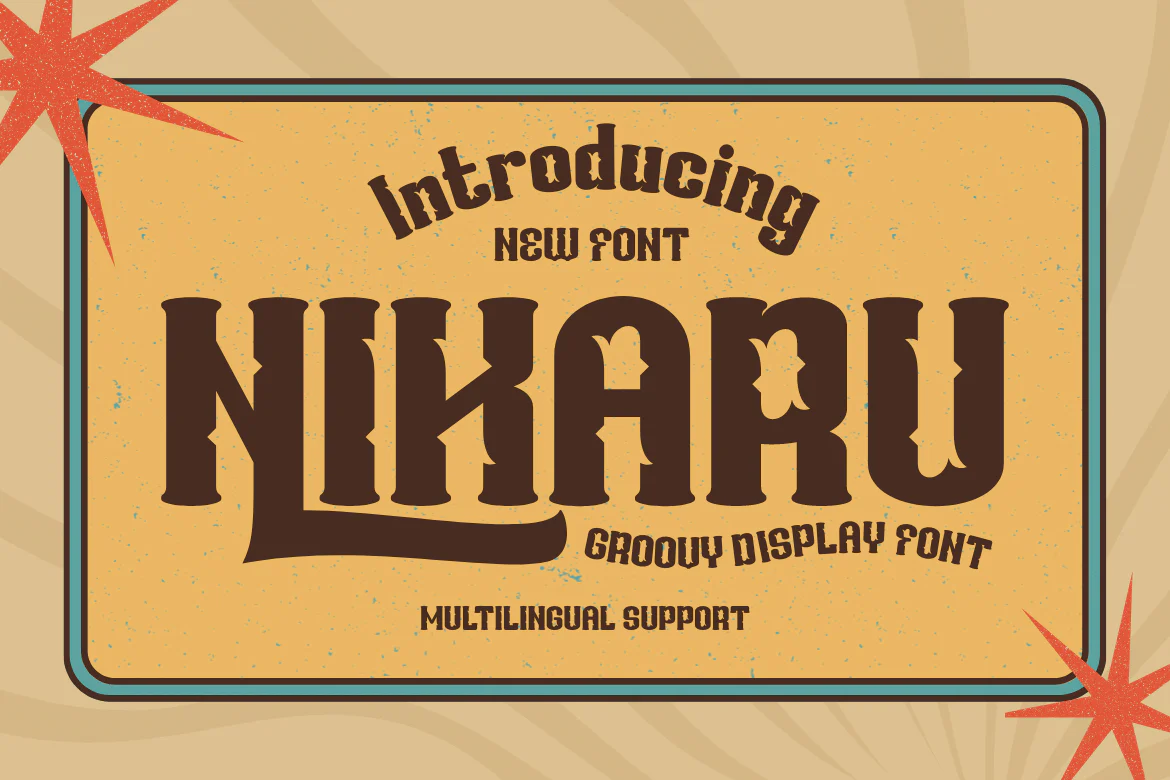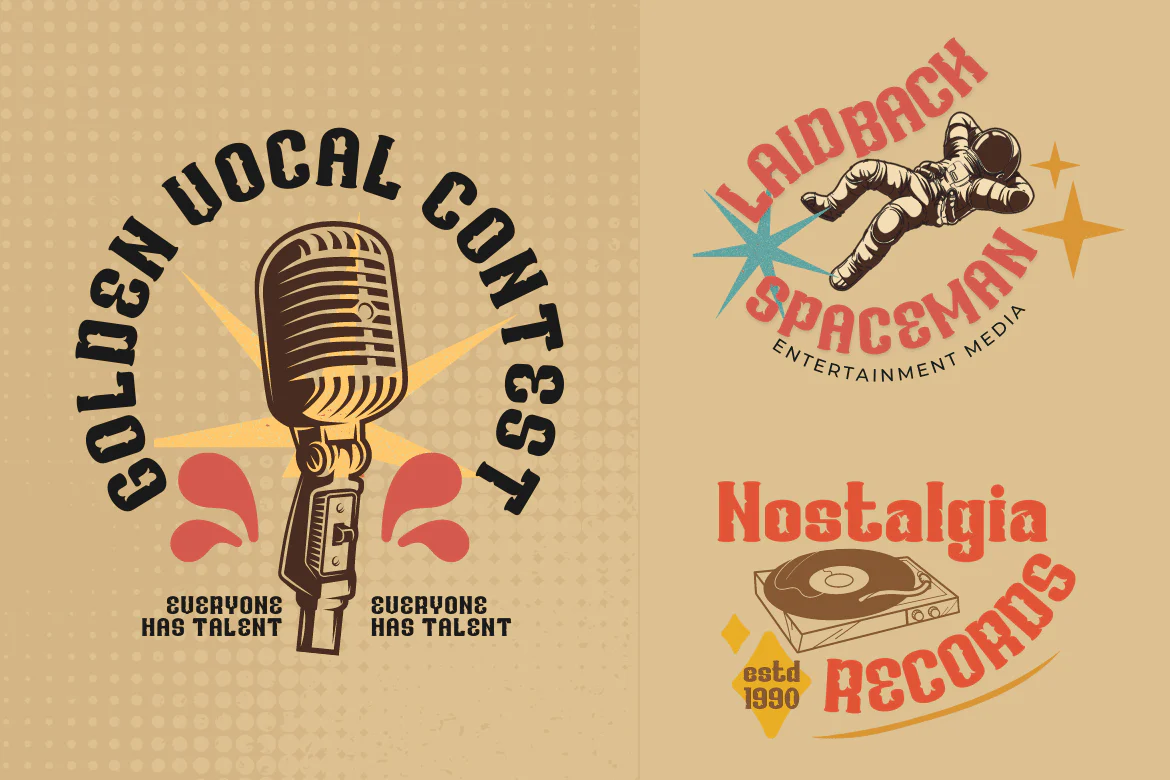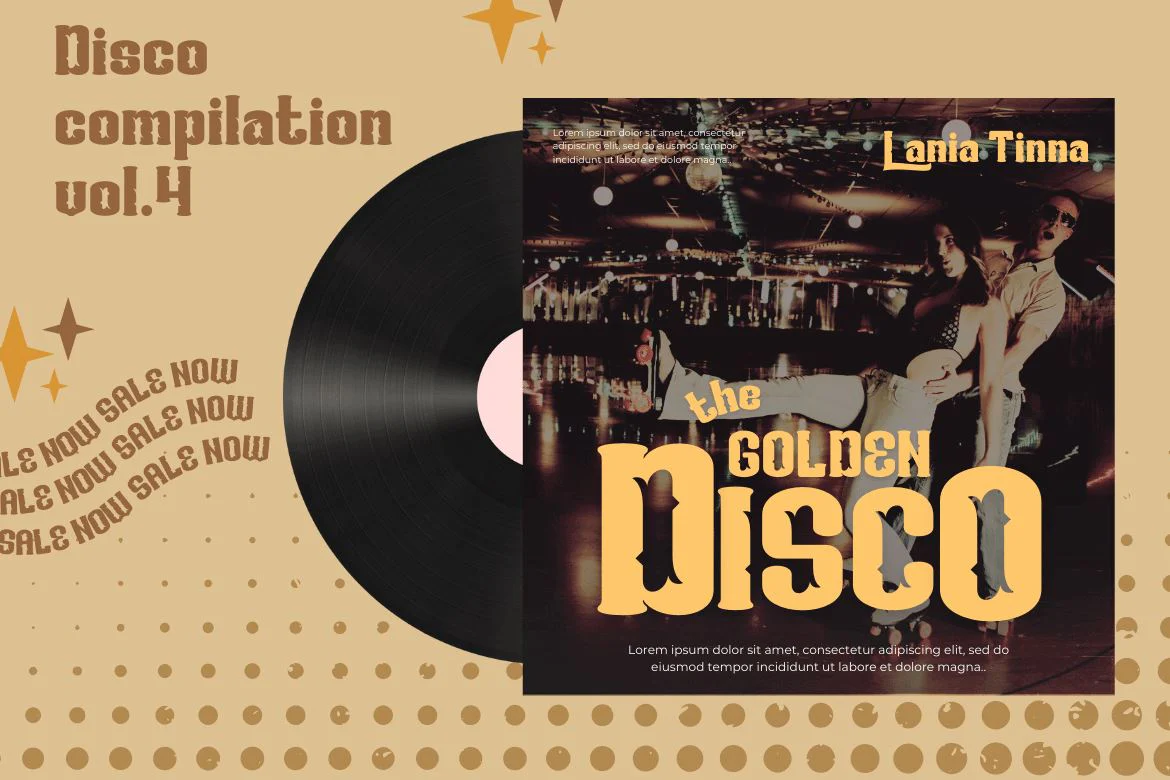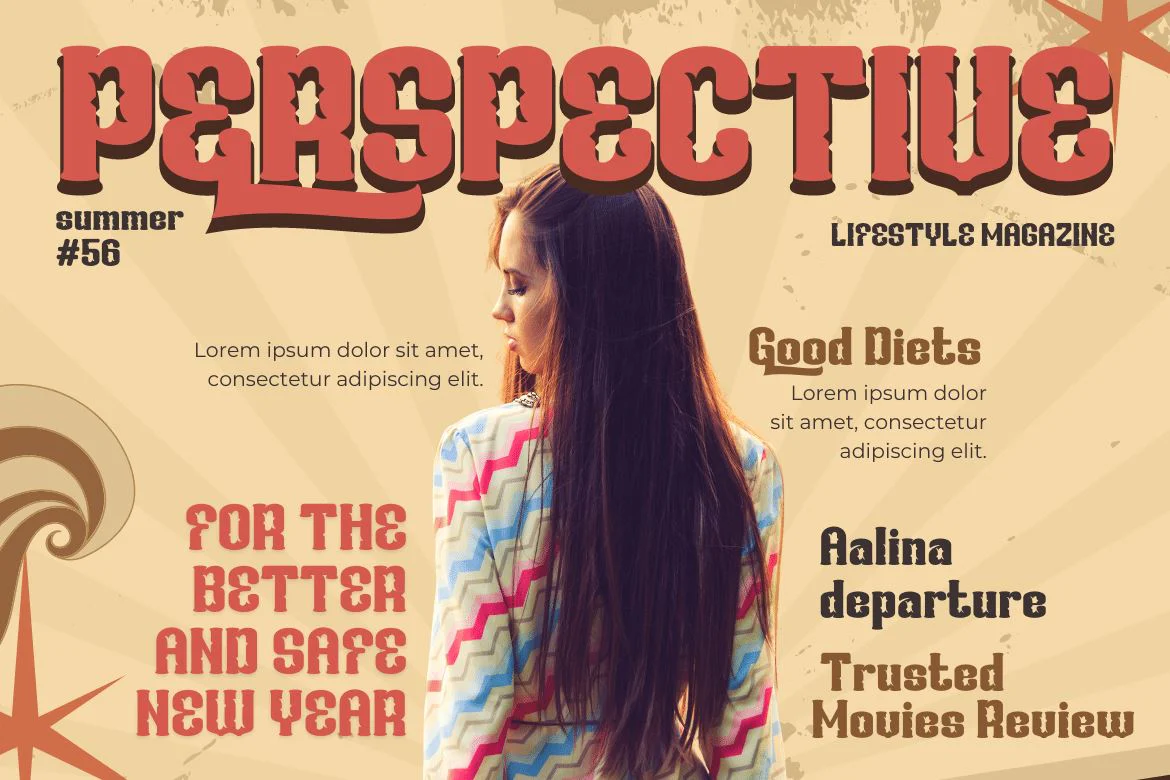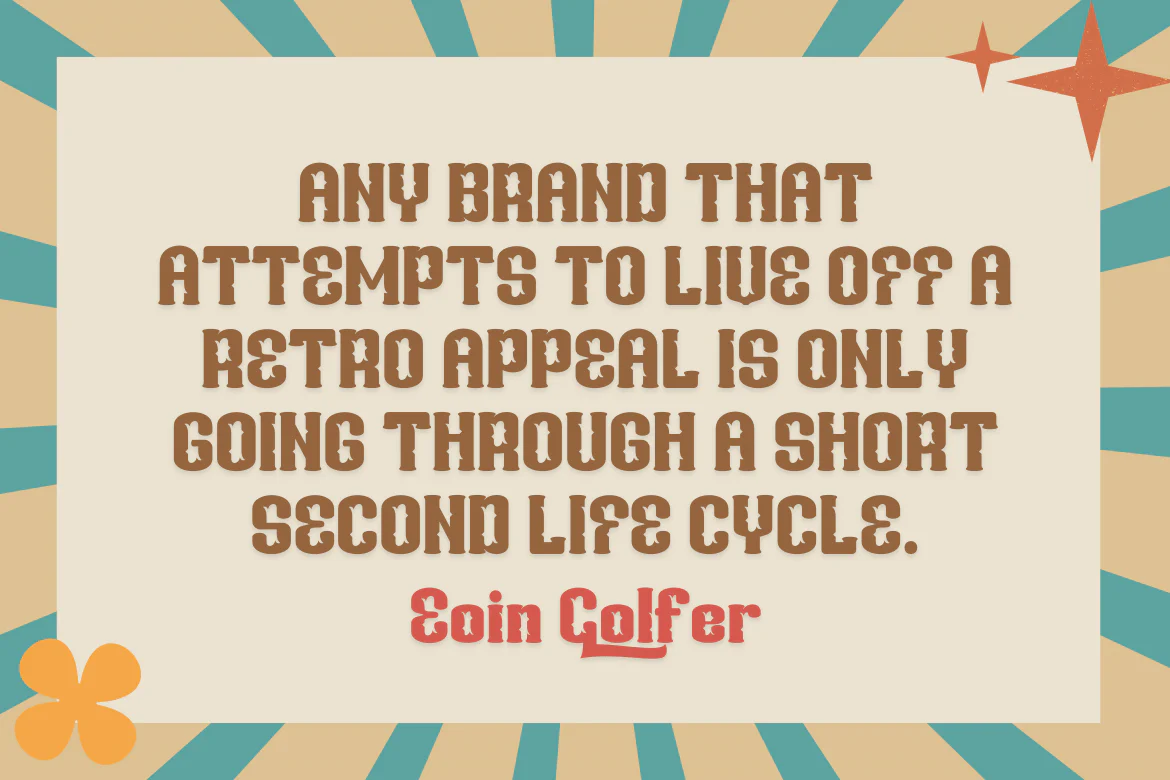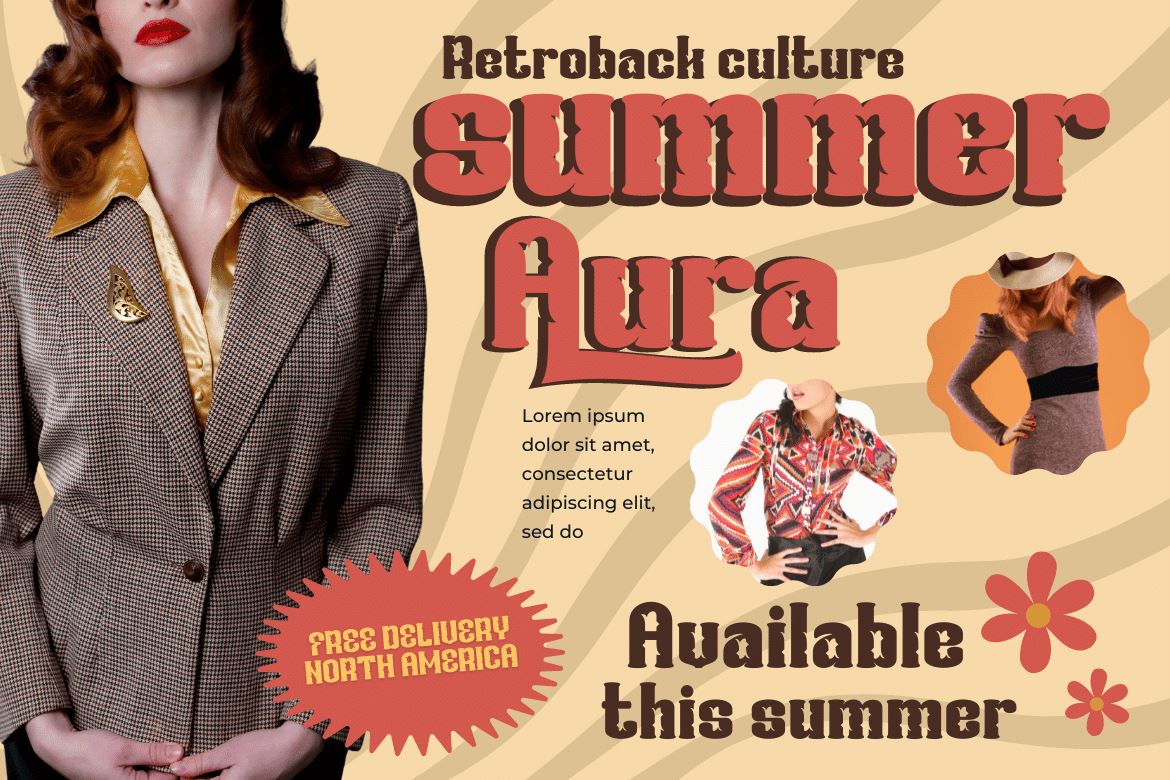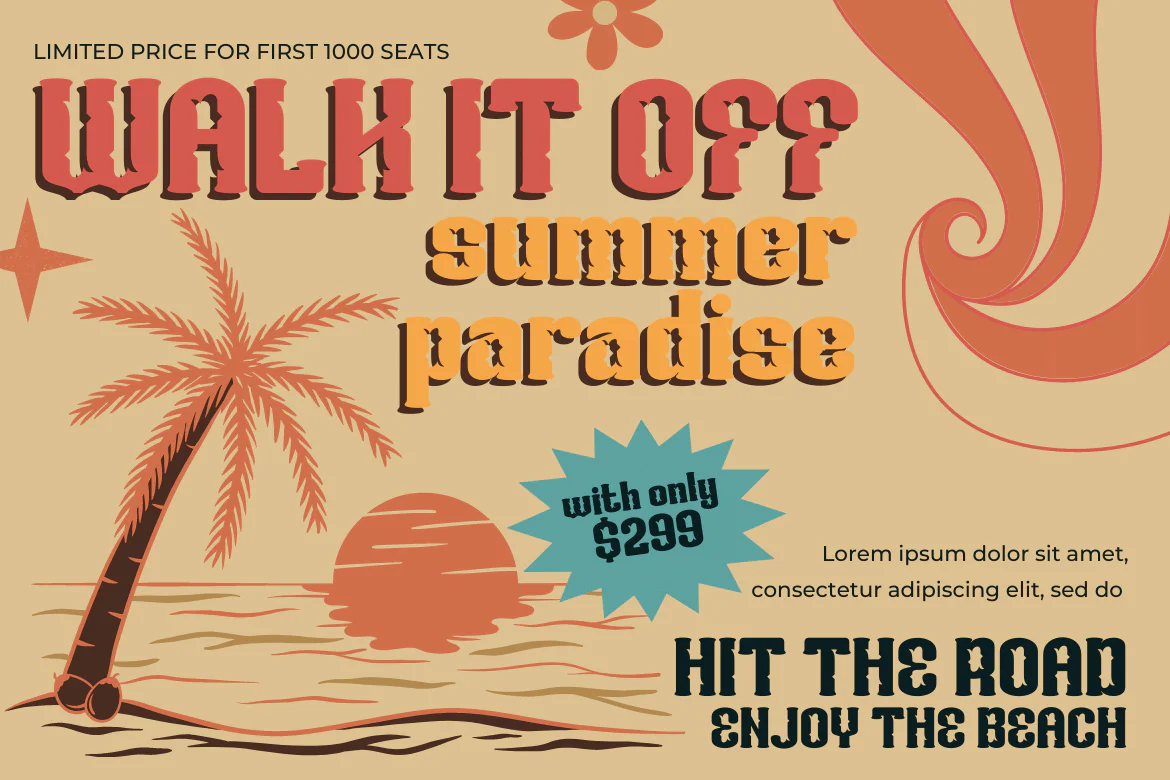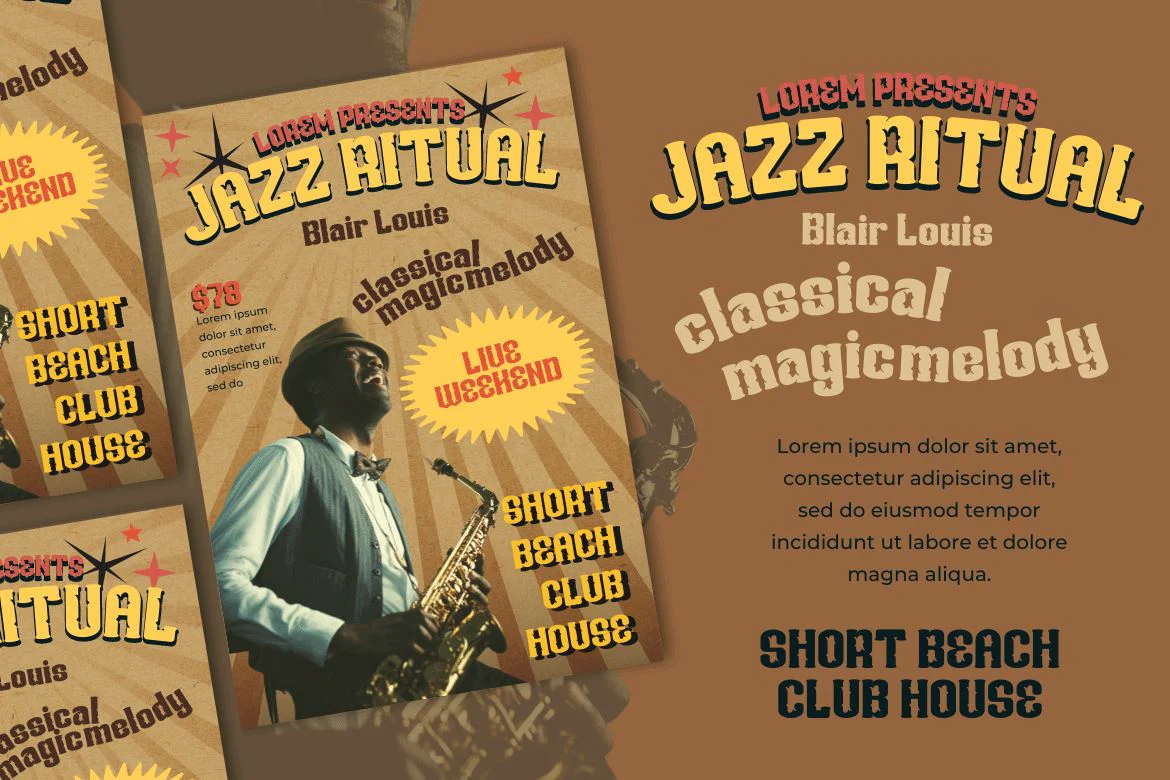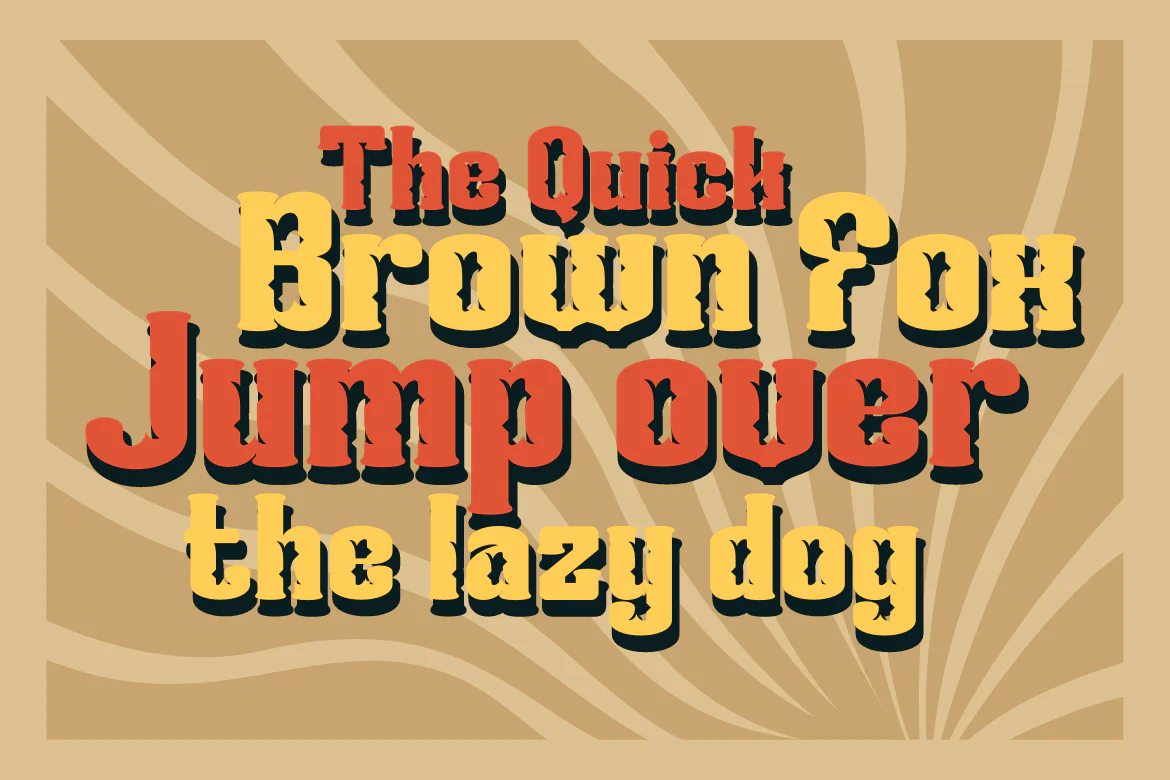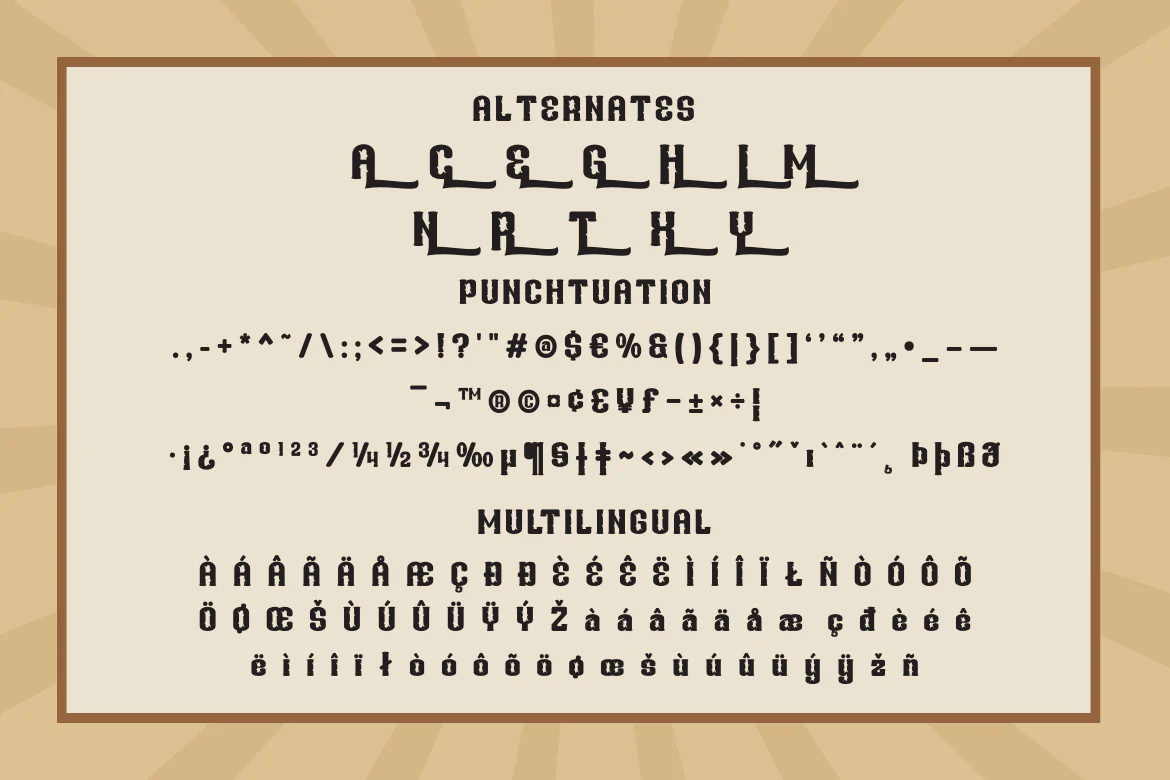
NIKARU | Groovy Retro Font
Nikaru is a retro-inspired display font designed in a simple and contemporary style that gives it a modern feel. This elegant typography is perfect for designing any project, especially editorial work, branding, product packaging, and promotional designs with bold and fun characters. It’s time to add some zest to your next project with this font.